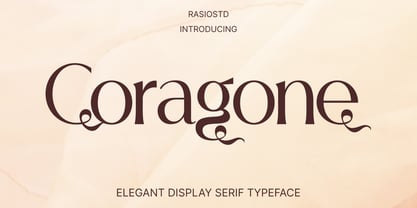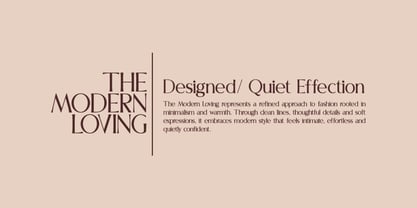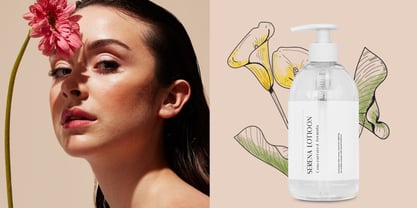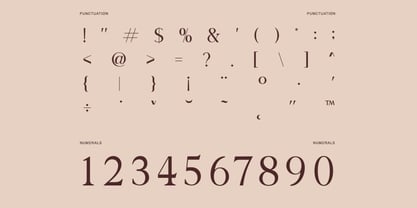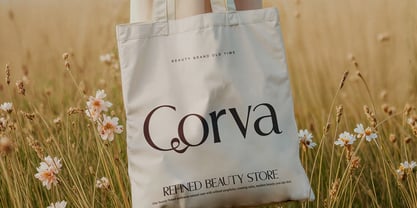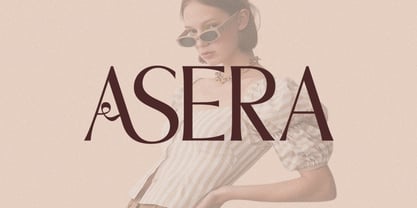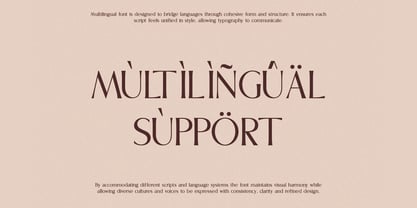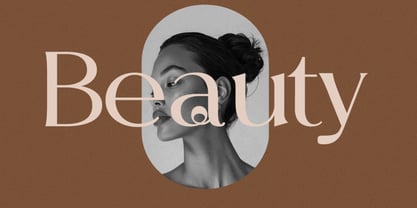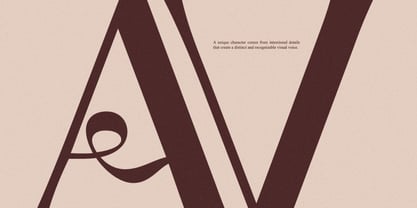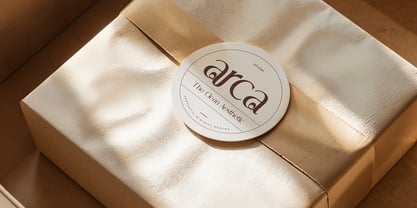
Coragone
por Rasio Studio
La familia tipográfica Coragone fue diseñada por Fajar Indra y publicada por Rasio Studio. Coragone contiene 1 estilos. Más información sobre esta familia
Coragone is an elegant display serif typeface with graceful curves, refined contrast, and unique decorative ligatures. Designed to evoke sophistication and charm, it features both standard and alternate characters with delicate swashes that enhance visual appeal. Coragone is a perfect fit for projects requiring refined elegance and expressive typography. It’s ideal for luxury branding, wedding stationery, magazine headlines, high-end packaging, boutique logos, and fashion marketing materials.
Diseñadores: Fajar Indra
Fundición actual: Rasio Studio